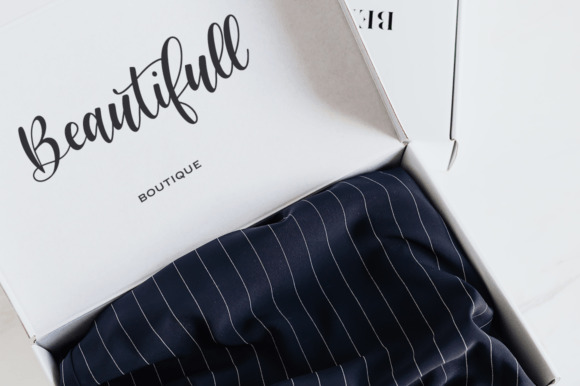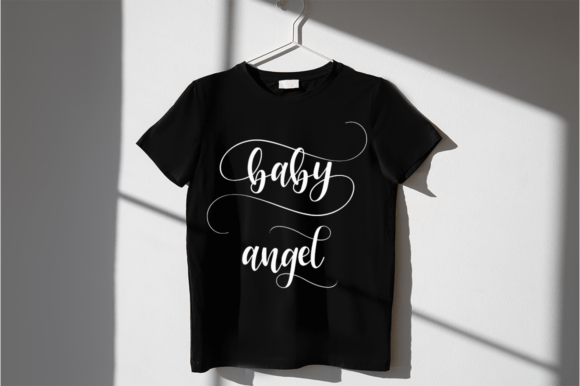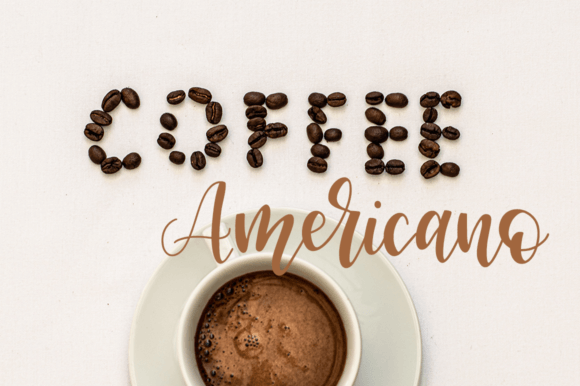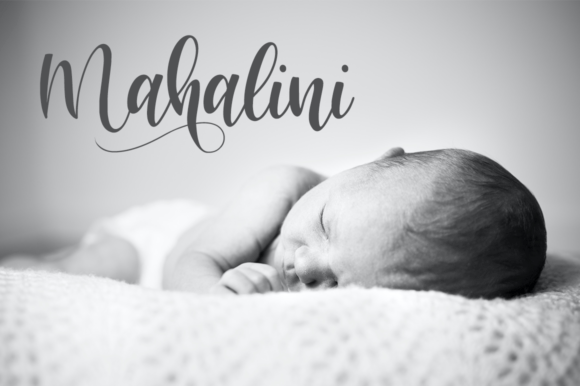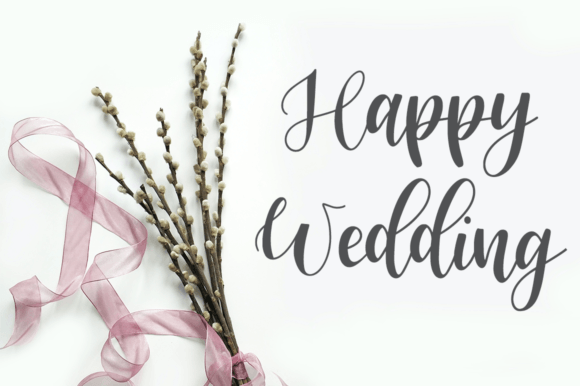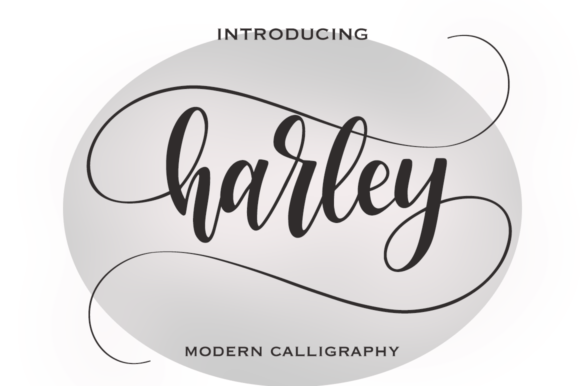
Introducing Harley Font: The Beauty of Modern Calligraphy
In the world of typography, fonts play a crucial role in conveying the tone and personality of a brand or design. For designers and crafters, finding the perfect font can make all the difference in creating a visually stunning piece. One such font that has gained popularity in recent times is the Harley Font. This beautiful script font is based on modern calligraphy with a natural handwriting look and feel, making it perfect for a variety of design applications.
What is Harley Font?
Harley Font is a modern script font that embodies the elegance and sophistication of calligraphy. With its fluid strokes and natural handwriting feel, this font is ideal for designers who want to add a touch of personality to their work. The font is designed to mimic the look of handwritten text, making it perfect for creating a sense of warmth and approachability in any design.
Characteristics of Harley Font
So, what makes Harley Font so special? Here are some of its key characteristics:
- Modern Calligraphy: Harley Font is rooted in modern calligraphy, making it perfect for designers who want to create elegant and sophisticated designs.
- Natural Handwriting Look: The font has a natural handwriting feel, which gives it a warm and approachable tone.
- Script Font: Harley Font is a script font, making it perfect for creating flowing and connected text.
- Versatile: This font is versatile and can be used in a variety of design applications, from logos and invitations to packaging and advertising.
Uses of Harley Font
Harley Font is a versatile font that can be used in a variety of design applications. Here are some of the ways you can use this beautiful font:
- Logos: Harley Font is perfect for creating elegant and sophisticated logos that make a lasting impression.
- Invitations: The font is ideal for creating formal and informal invitations for weddings, parties, and other events.
- Labels: Harley Font can be used to create beautiful labels for products, gifts, and other items.
- Magazines and Books: The font is perfect for creating elegant and readable text for magazines, books, and other publications.
- Greeting and Wedding Cards: Harley Font can be used to create beautiful and heartfelt greeting and wedding cards.
- Packaging: The font is ideal for creating eye-catching and elegant packaging for products.
- Fashion and Makeup: Harley Font can be used to create stylish and sophisticated designs for fashion and makeup brands.
- Stationery: The font is perfect for creating elegant and professional stationery, including letterheads, envelopes, and notepads.
- Novels and Short Stories: Harley Font can be used to create beautiful and readable text for novels, short stories, and other literary works.
- Advertising: The font is ideal for creating eye-catching and effective advertising campaigns.
Why Choose Harley Font?
So, why should you choose Harley Font for your design projects? Here are some reasons:
- Unique and Elegant: Harley Font is a unique and elegant font that will make your designs stand out.
- Versatile: The font is versatile and can be used in a variety of design applications.
- Easy to Read: Harley Font is easy to read, making it perfect for creating readable text.
- High-Quality: The font is of high quality, making it perfect for professional designs.
In conclusion, Harley Font is a beautiful script font that is perfect for designers and crafters who want to add a touch of elegance and sophistication to their work. With its modern calligraphy and natural handwriting look, this font is versatile and can be used in a variety of design applications. Whether you’re creating logos, invitations, labels, or advertising campaigns, Harley Font is a great choice. So, why not give it a try and see the difference it can make in your designs?